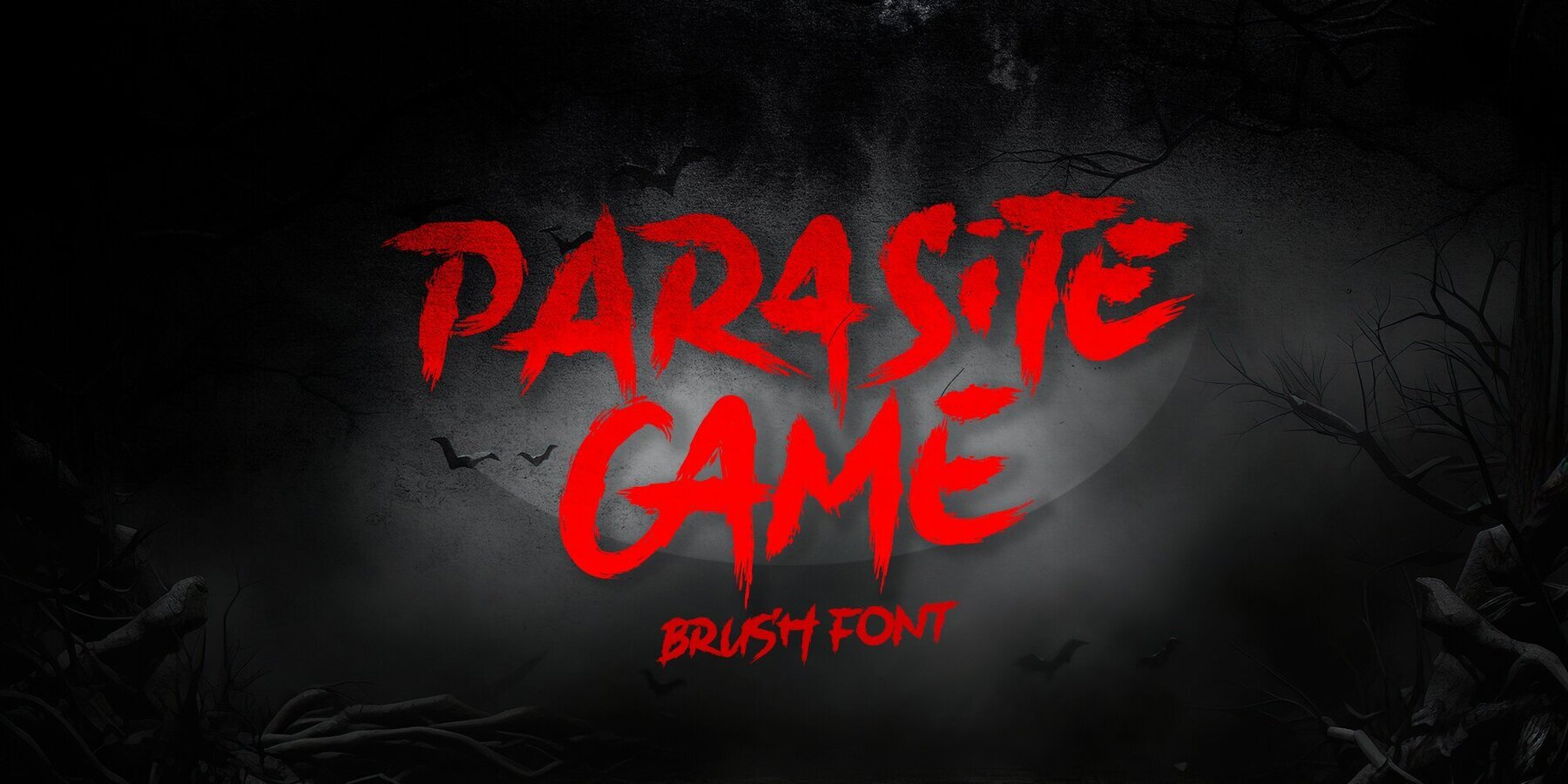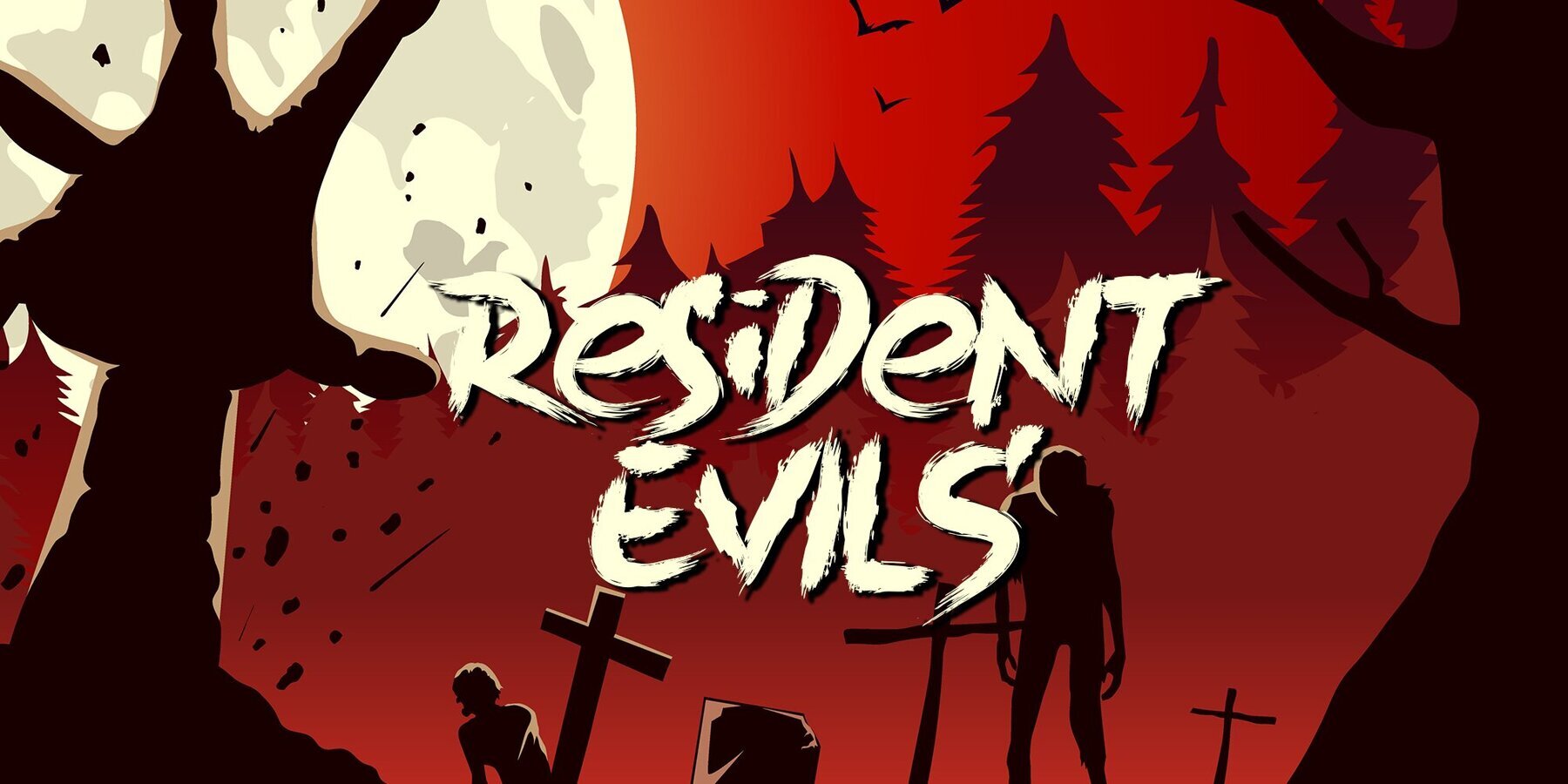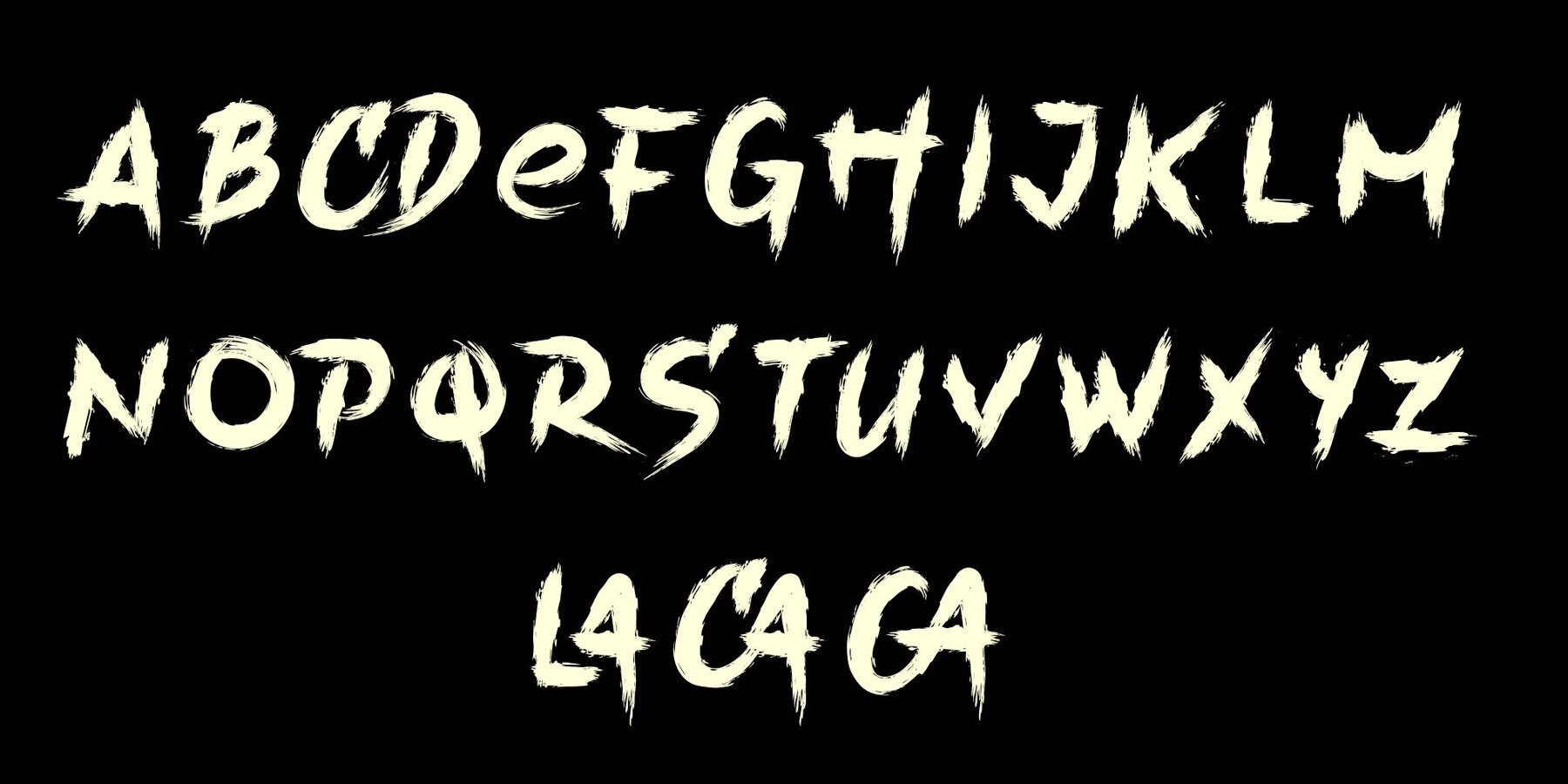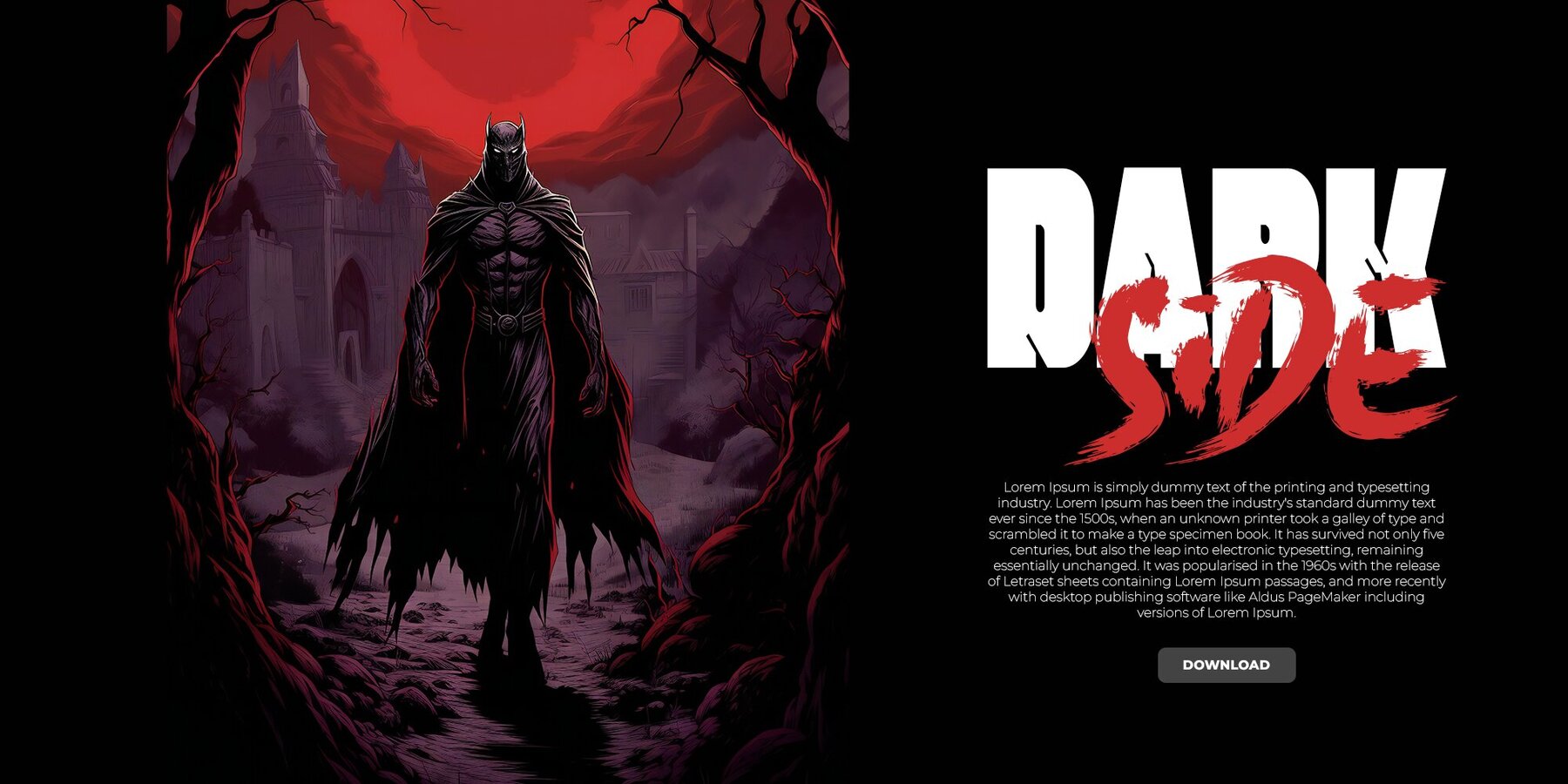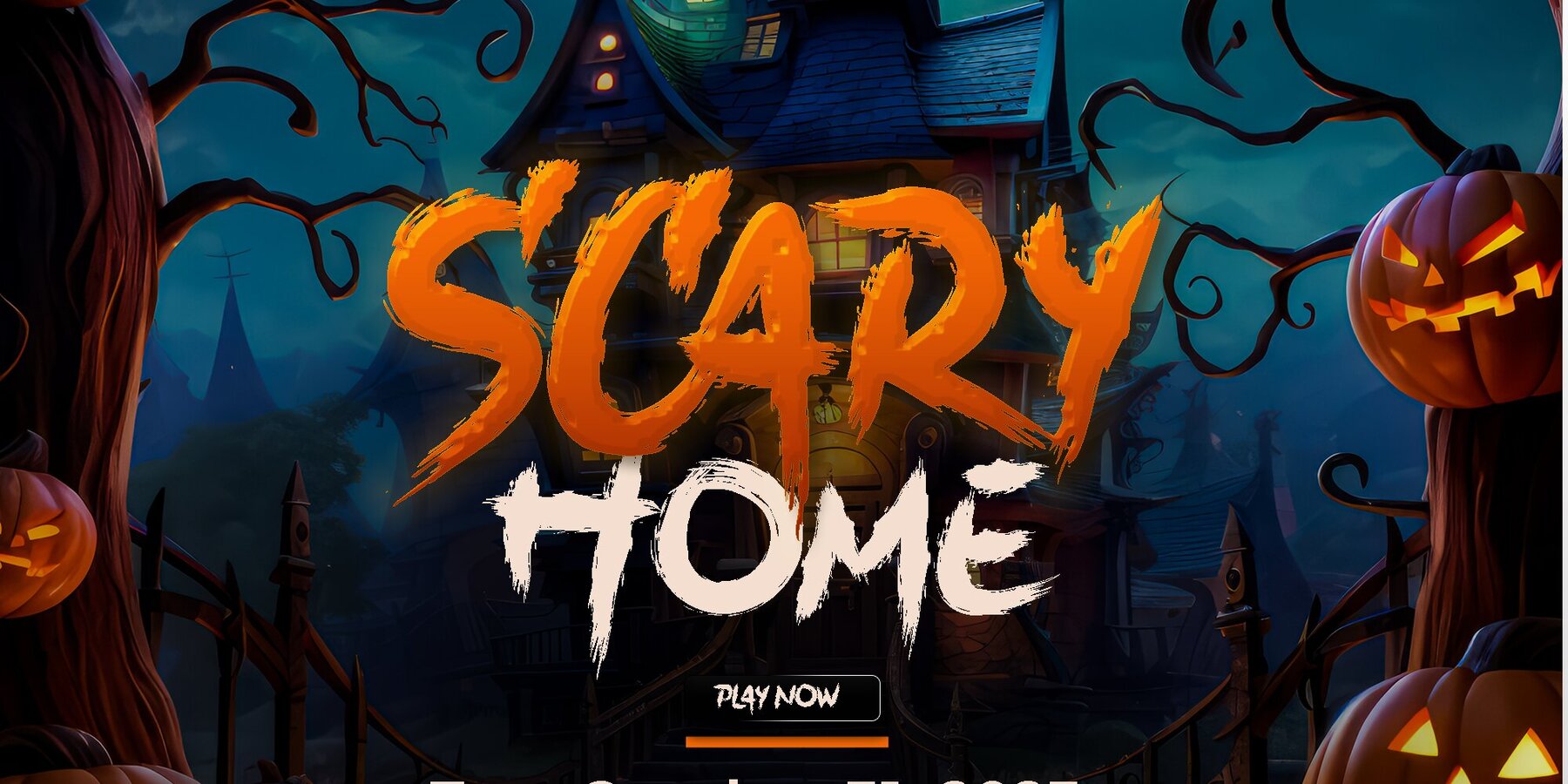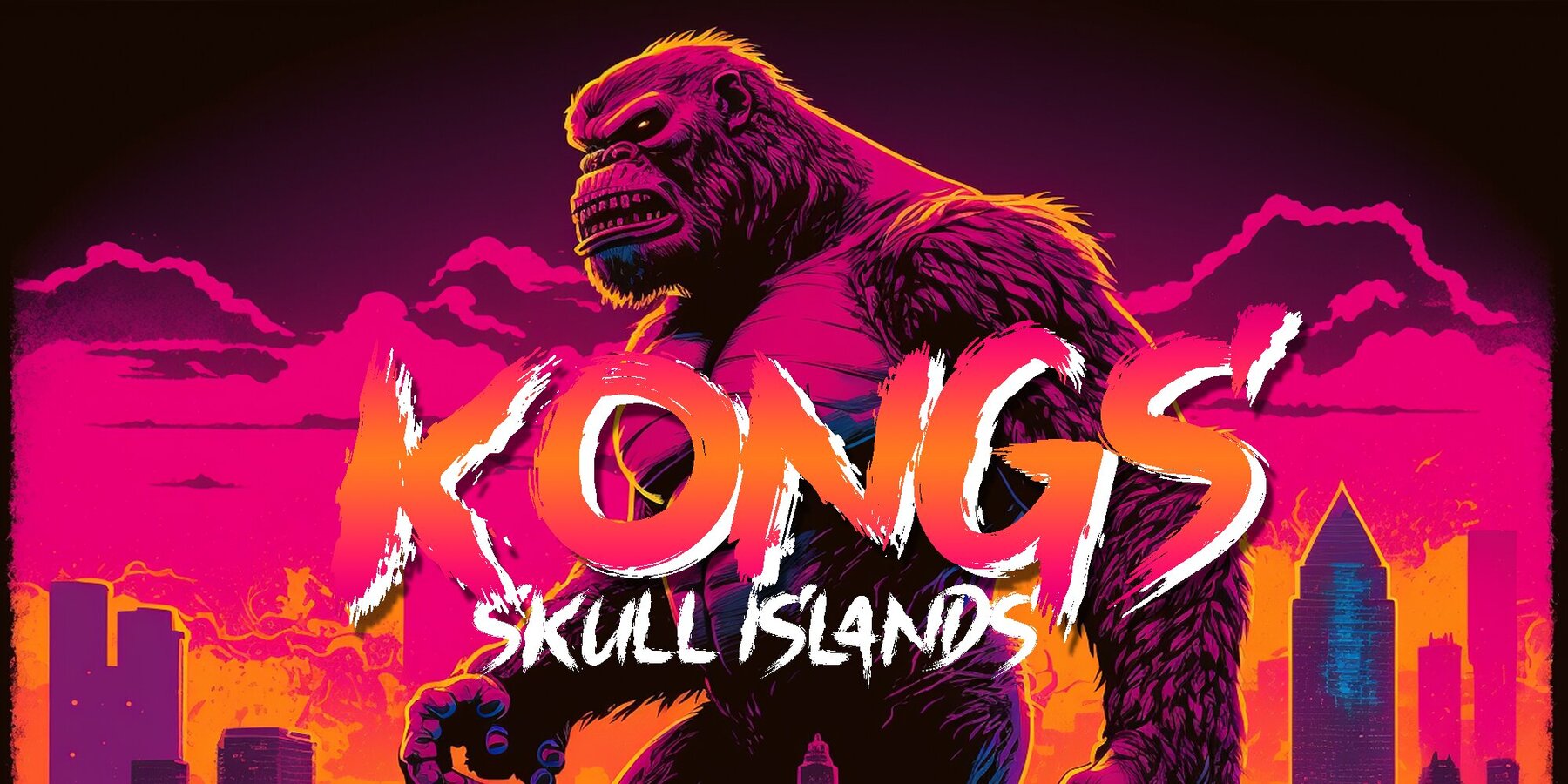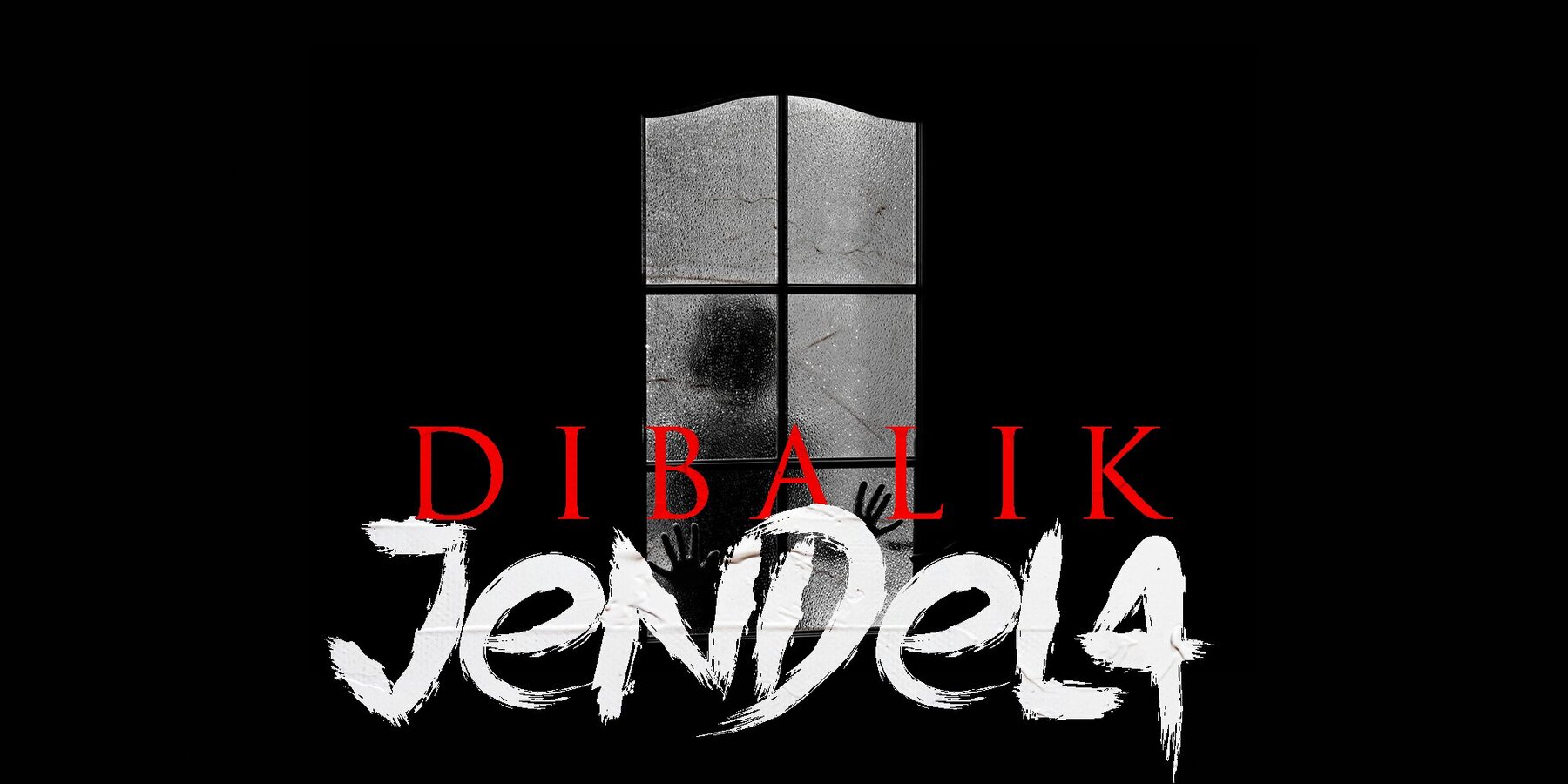
Parasite Game Font
Parasite Game
Parasite Game is a horror display font designed for various applications, including horror themes, movies, posters, Halloween events, and advertisements. Its unique style makes it a perfect choice for any project that requires a touch of eerie sophistication. Make your designs stand out with this versatile and striking horror font.